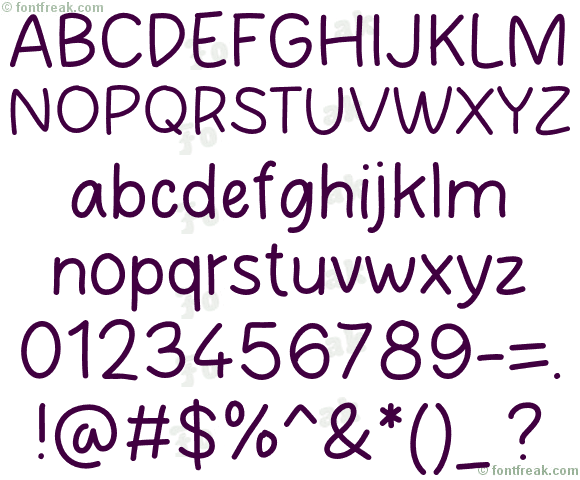
Hello Avocado
Hello Avocado by MJType is a delightful handwritten font that captures a playful and relaxed vibe, perfect for various creative projects. This font features a casual, organic style with smooth curves and uneven line weights, emulating the charm of natural handwriting. The strokes are moderately thick, lending a sense of warmth and friendliness, while the spacing is well-balanced, ensuring readability without sacrificing style. Its whimsical character makes it a standout choice for designs that aim to evoke joy and creativity.
Best suited for wedding invitations, café menus, children's book covers, greeting cards, and social media graphics, Hello Avocado effortlessly enhances the aesthetic appeal of these projects. The font's unique personality makes it ideal for small business owners looking to establish a friendly brand identity, allowing them to connect with their audience on a more personal level. Graphic designers and content creators will also find this font to be a valuable addition to their toolkit, as it brings a fresh and youthful touch to any layout.
The target audience for Hello Avocado includes graphic designers, small business owners, and content creators who appreciate a casual yet stylish font that can easily adapt to various contexts. Whether you're crafting a fun invitation or a vibrant promotional material, this font adds a delightful flair that can elevate your work.
What truly sets Hello Avocado apart is its ability to blend a playful aesthetic with functional usability. The font is not only visually appealing but also versatile enough to fit into a wide range of design scenarios. For those searching for a unique typeface that encapsulates a sense of warmth and creativity, the Hello Avocado font free download is an opportunity not to be missed.